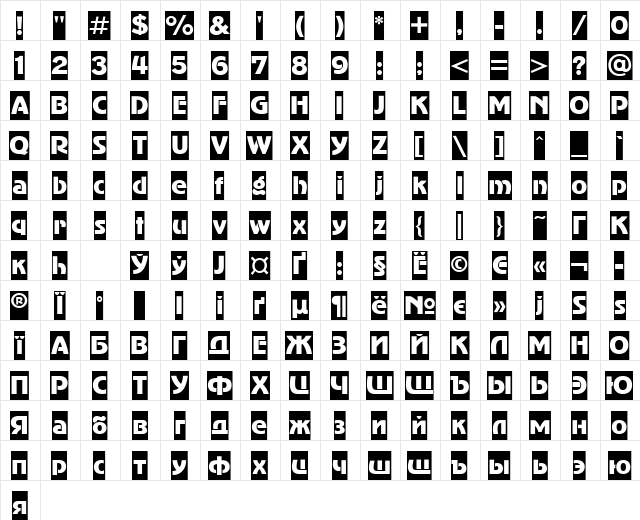
AdverGothicCamCTT Regular
Design Context for AdverGothicCamCTT Typeface
AdverGothicCamCTT has the quiet confidence of well-executed sans-serif typography: versatile, unobtrusive, and dependable at any size.
Font Pairing: Works well alongside a characterful serif or display font that can carry the expressive load while AdverGothicCamCTT handles the functional copy.
Pro Tip: Use AdverGothicCamCTT for UI labels, navigation, and short-form body copy where clean legibility is the priority.